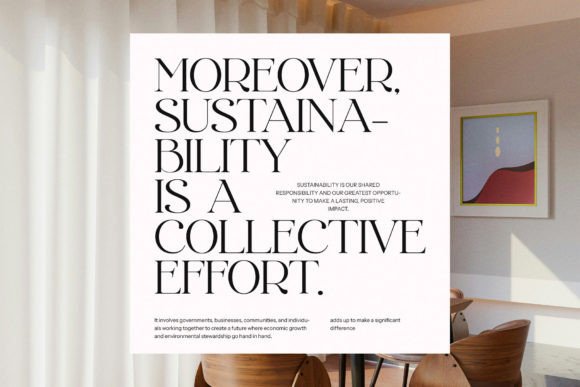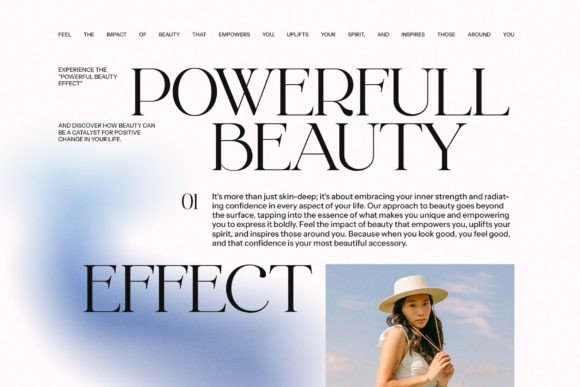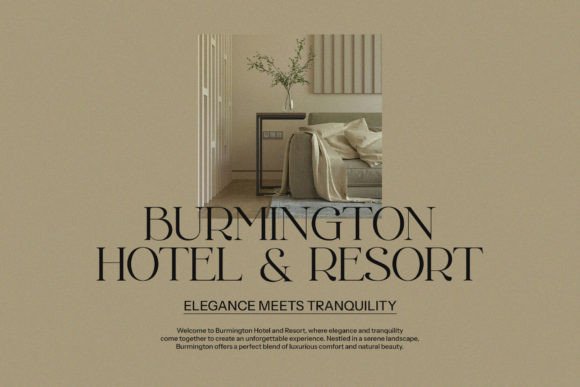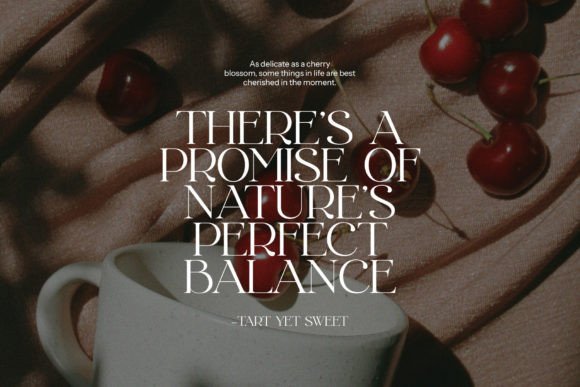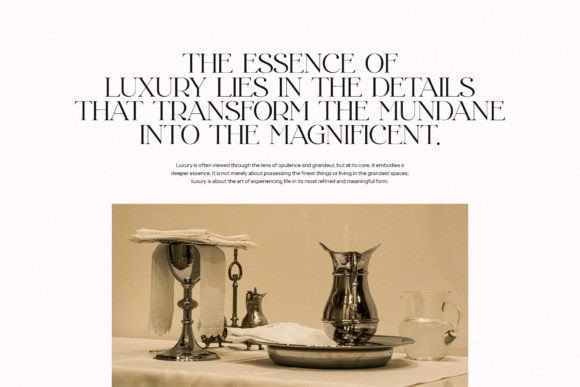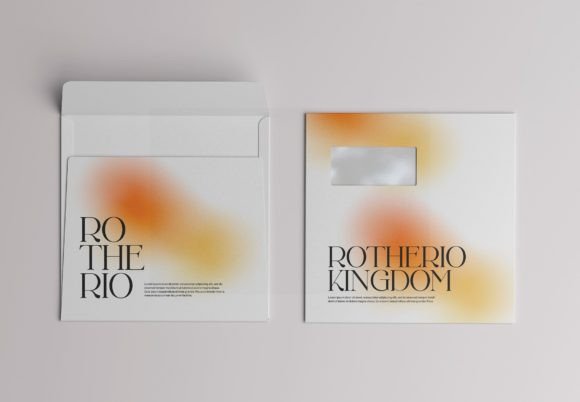
Introduction to Kolins Font
As a designer, have you ever been in the middle of a project, pouring your heart and soul into it, only to realize that the perfect font is missing? That’s when the hunt begins – scouring the internet for the perfect design resource to elevate your creative project. If you’re on the lookout for a high-quality font that exudes sophistication and elegance, you’re in luck! In this article, we’ll be diving into the world of Kolins Font, a modern serif typeface that’s sure to make your design stand out.
Kolins Font is more than just a stylish addition to your design arsenal – it’s a game-changer. With its delicate curves and classy ligature, this font brings a touch of refinement to any project. Whether you’re working on a beauty design, crafting an elegant layout, or creating a brand identity, Kolins Font is the perfect companion. And the best part? It’s available for a free download, making it an accessible design resource for designers of all levels.
So, what makes Kolins Font so valuable to designers? For starters, its transparent background and high-quality design make it perfect for a variety of creative projects. Whether you’re working on a commercial project or a personal design, Kolins Font is sure to deliver. In the next section, we’ll take a closer look at what makes this font tick and how you can incorporate it into your next design project.
Kolins Font
- High-quality font designed for creative projects and digital artwork
- Includes a transparent background, allowing for seamless integration with various design elements
- Features a unique and elegant design, perfect for use in various creative projects, including logos, typography, and graphics
Honest Review: Kolins Font
I recently came across the Kolins Font, and I must say it’s been a great addition to my design resource collection. As a designer, I’m always on the lookout for high-quality fonts that can elevate my creative projects.
One of the standout features of the Kolins Font is its transparent background, which makes it incredibly versatile and easy to work with. I’ve used it in a variety of design projects, from branding to editorial work, and it’s consistently delivered great results.
- High-quality design with a unique aesthetic
- Transparent background for easy editing and customization
- Only available in a single weight, which may limit its use in certain design applications
- Lack of variations in style or tone may make it less suitable for complex or nuanced design projects
Overall, the Kolins Font is a solid addition to any designer’s toolkit. While it may have some limitations, its high quality and versatility make it a great resource for creative projects. I’m looking forward to incorporating it into more of my designs in the future.
Tips and Best Practices
Kolins Font is commonly used in creative projects such as:
- Branding
Alternatives to Kolins Font
Alegreya Sans is a high-quality, sans-serif font designed for use in body text and titles. It features a transparent background, making it ideal for use in creative projects where a clean and modern aesthetic is desired.
When to use: Alegreya Sans is a versatile font that works well in a variety of contexts, including magazines, newspapers, and online articles.
How it compares to Kolins Font: Alegreya Sans has a more modern feel than Kolins Font, with a focus on clean lines and minimal ornamentation. While Kolins Font has a more traditional feel, Alegreya Sans is a great choice for designers looking for a more contemporary look.